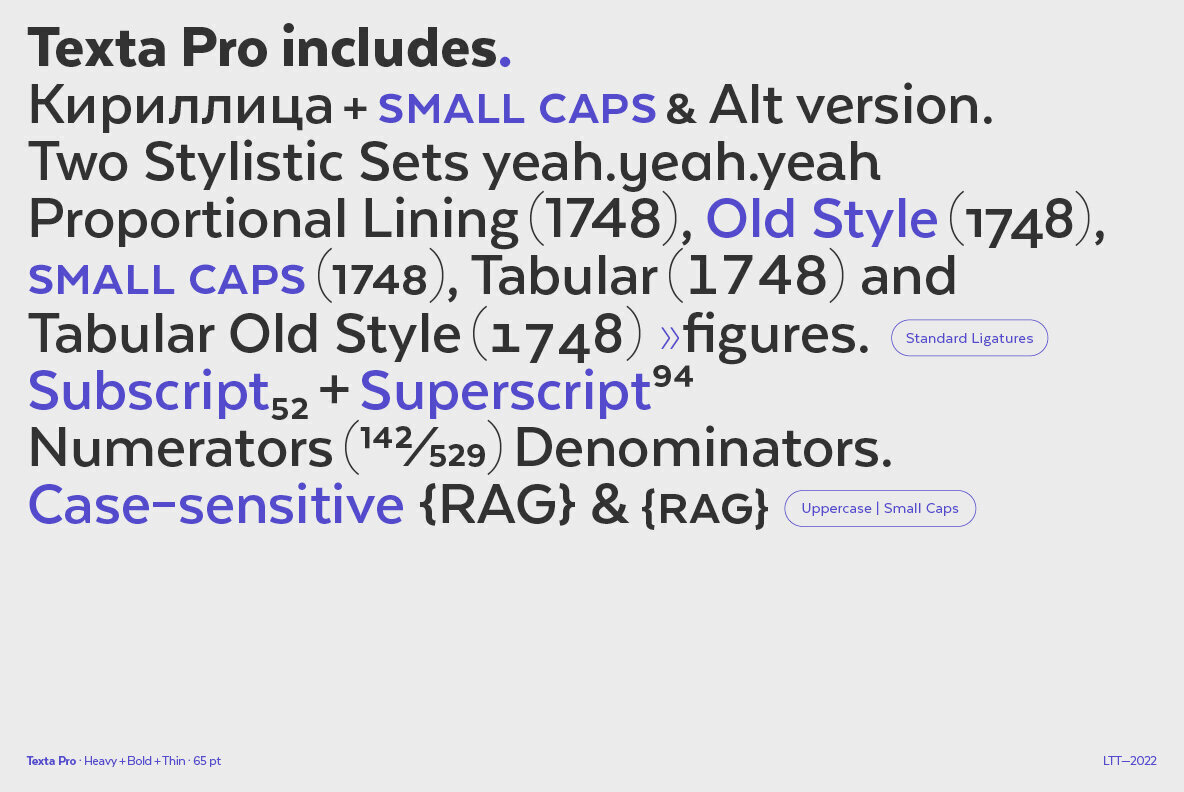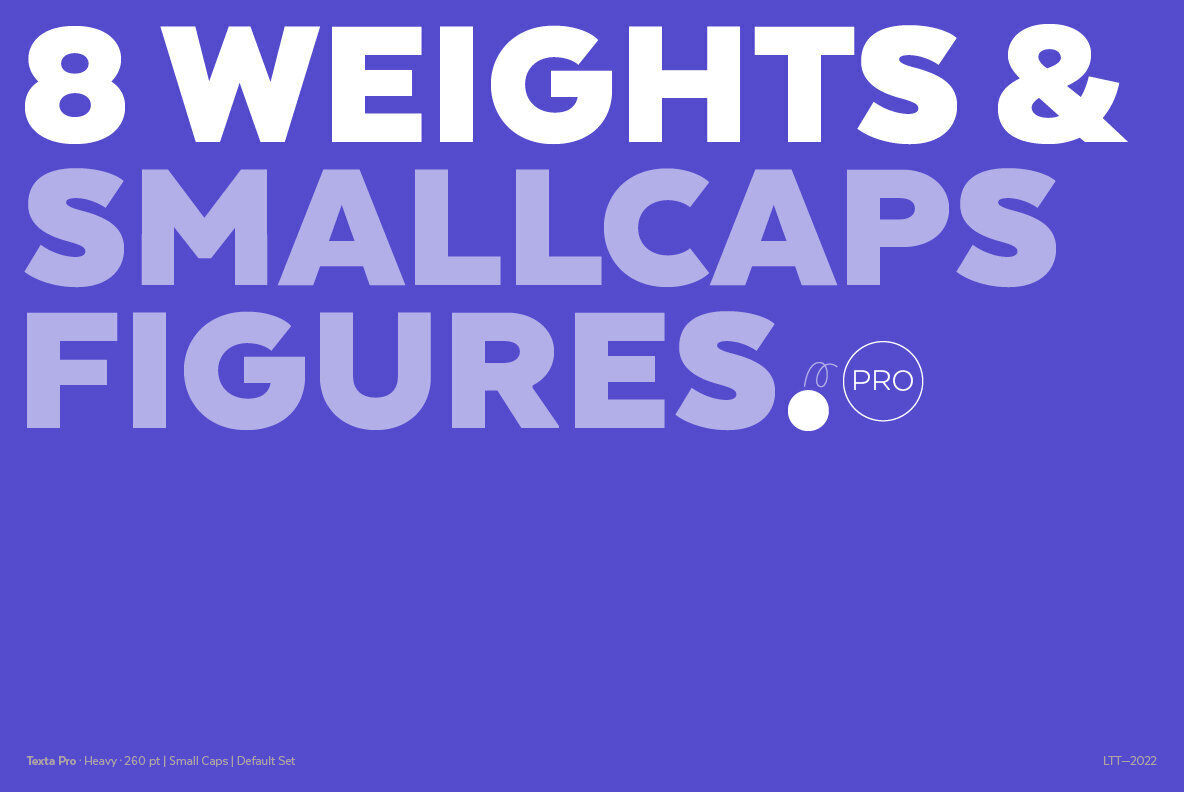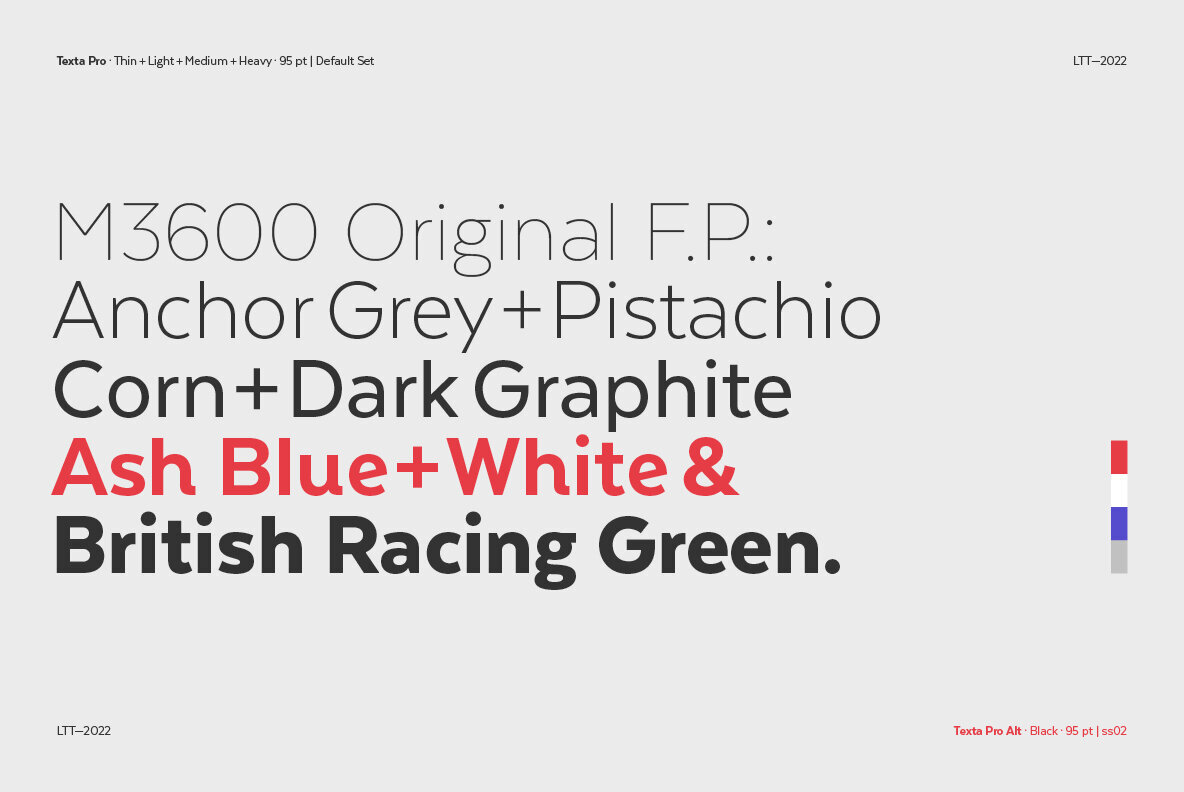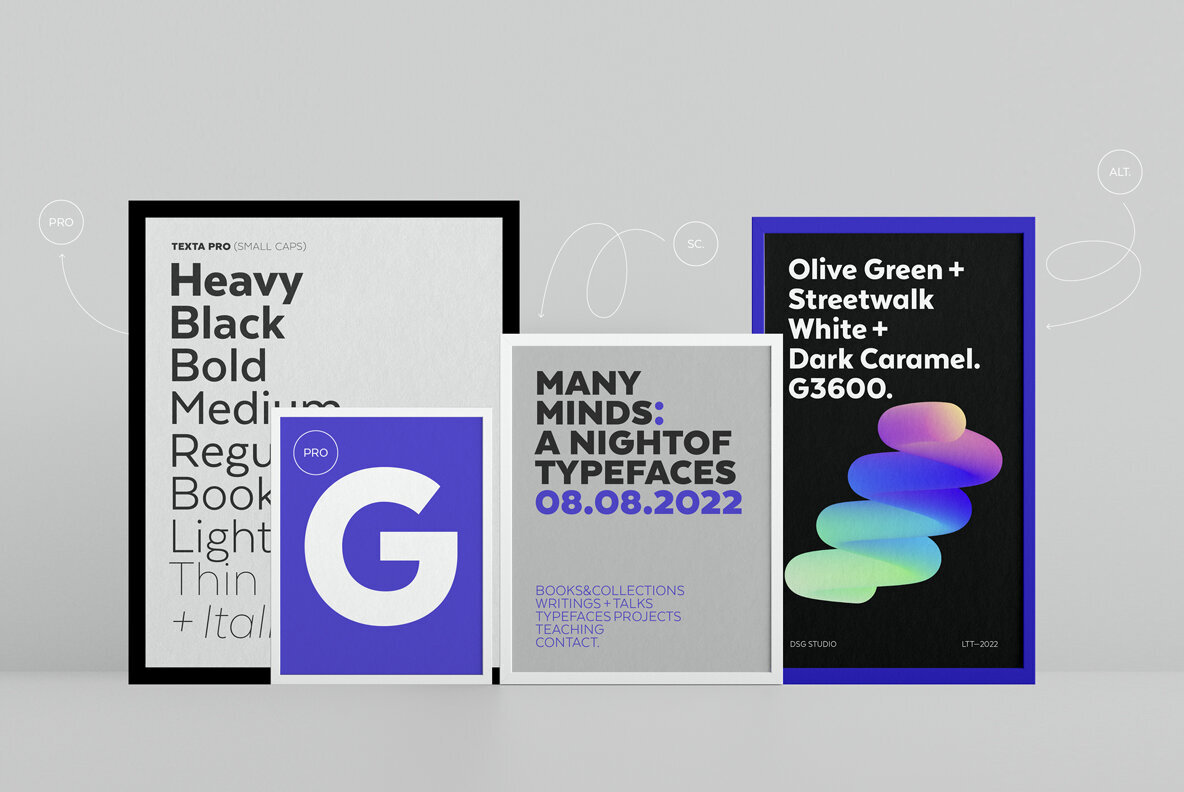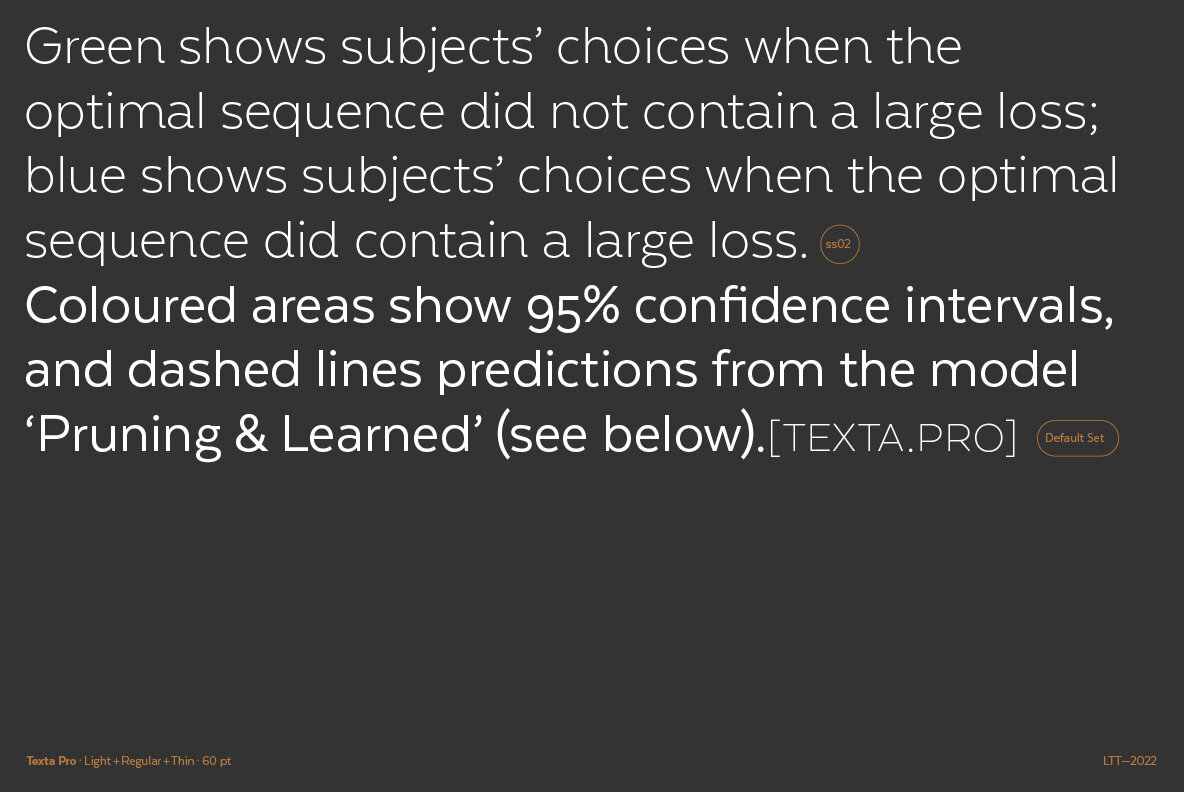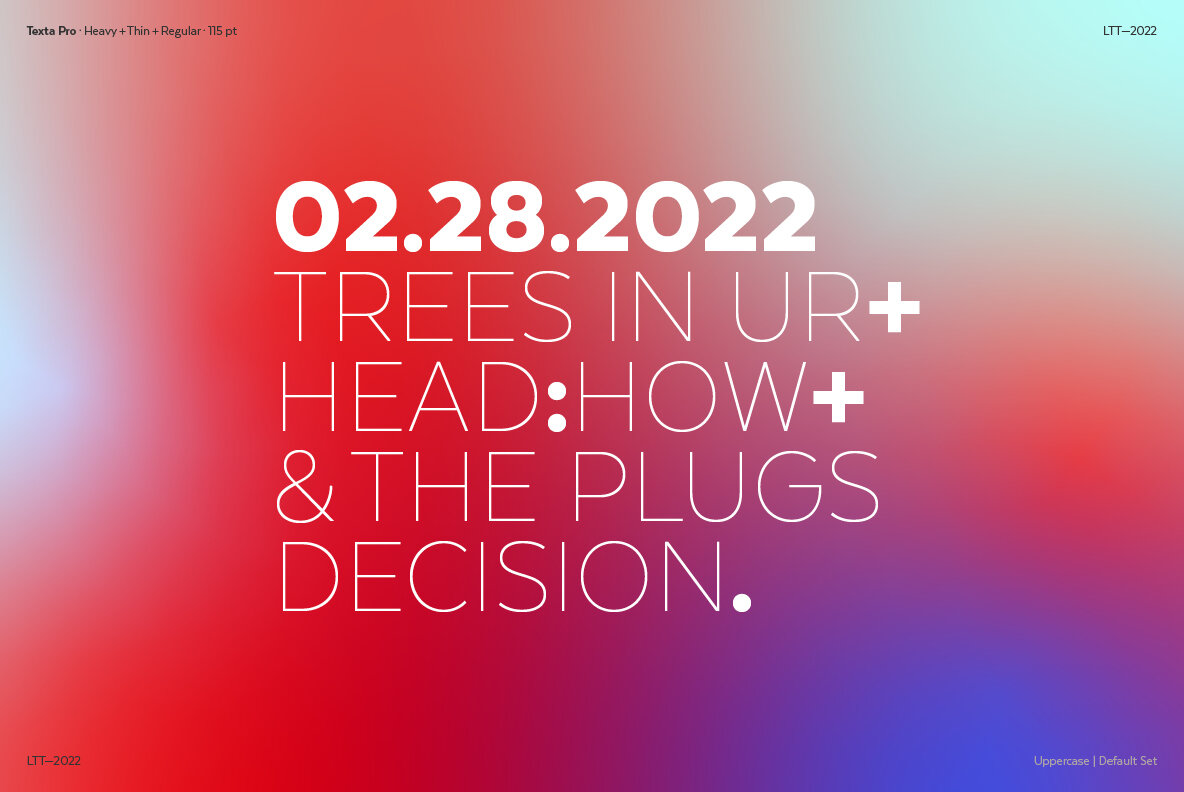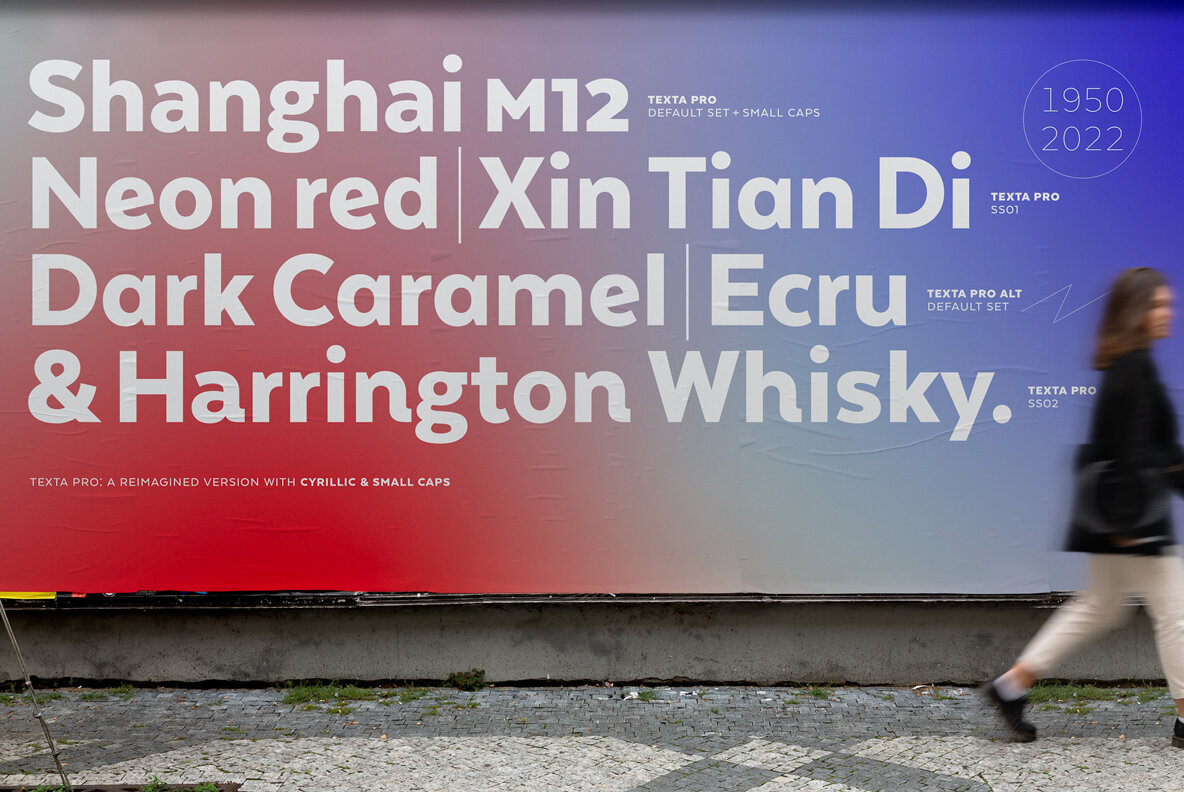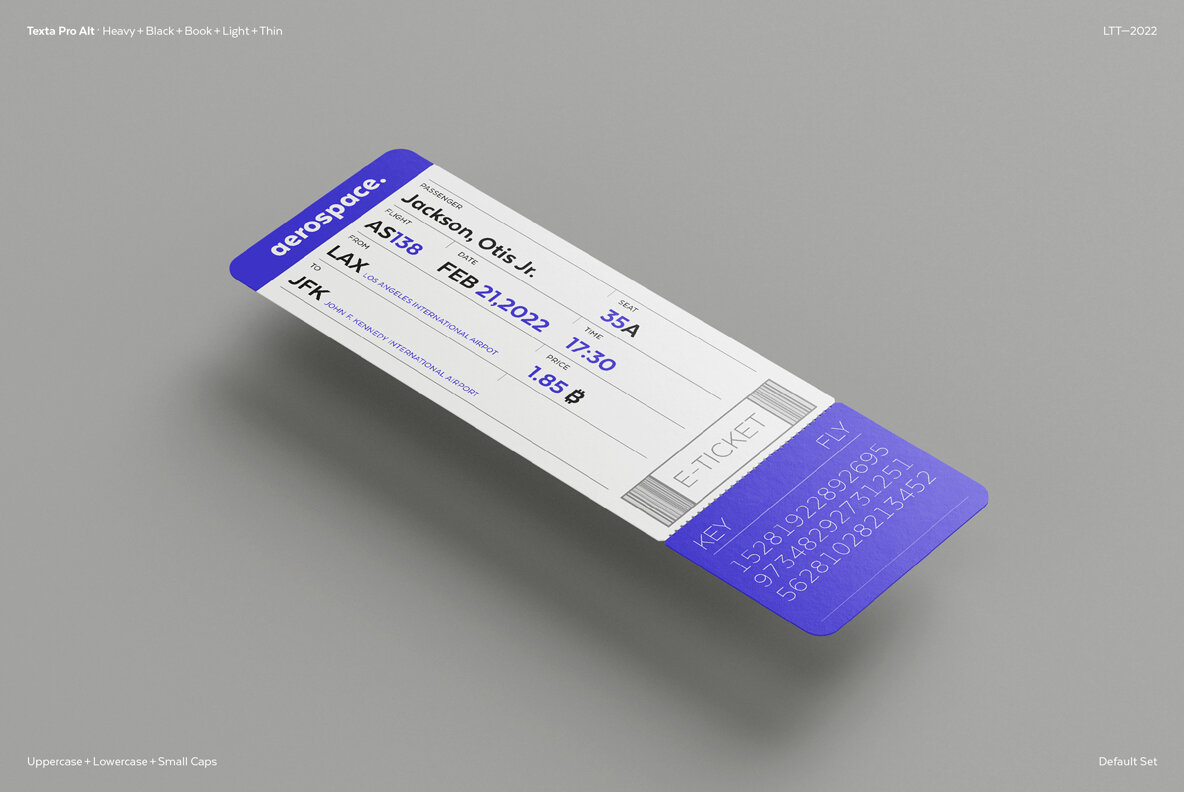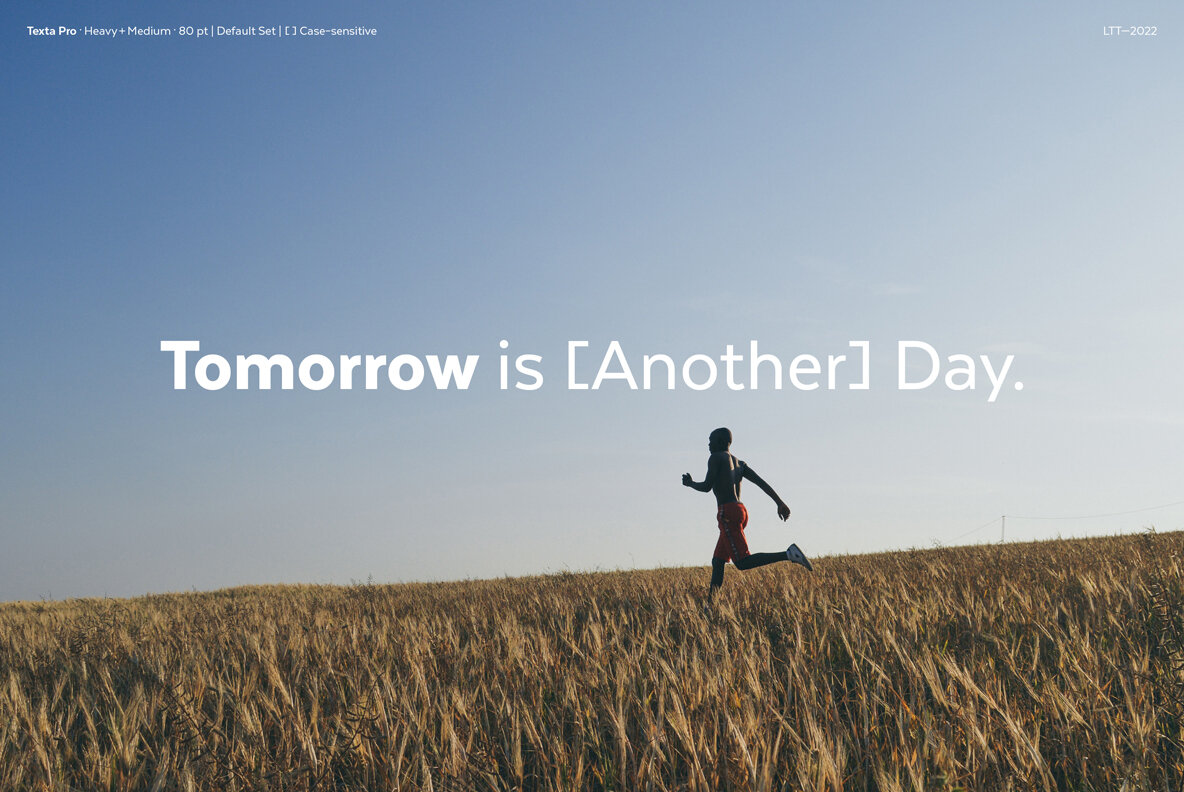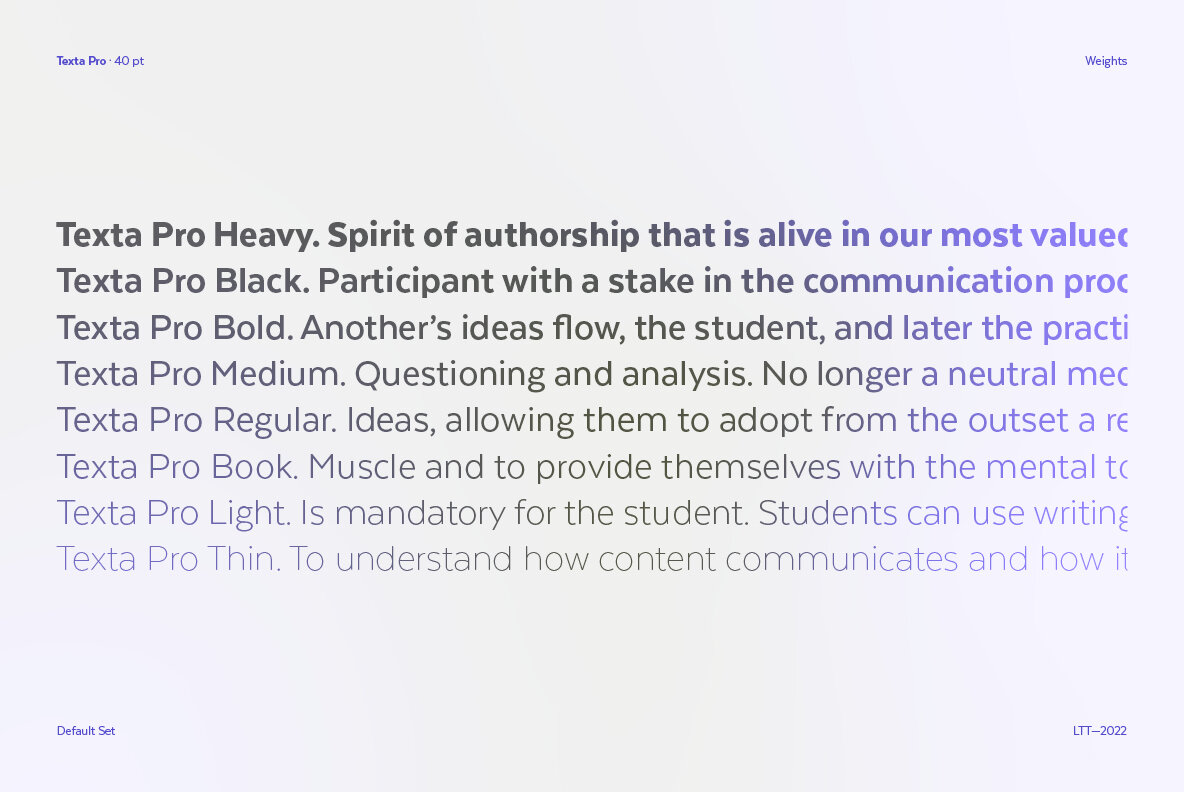
Texta Pro Font
Because all good things can get better. Texta was born in 2014, a collaborative project of the study of humanist models from Edward Johnston to Adrian Frutiger. Texta Pro is a contemporary and rational sans, almost invisible, but not quite. It is a workhorse for any type of project.
New design of symbols such as Section, Partialdiff, Dagger, approxequal, among others. Expansion of monetary signs (Bitcoin, Peso, Franc, etc.) Basic ligatures fi, fl. Includes Cyrillic.
Added set of small caps for Latin, Cyrillic, numbers, punctuation and monetary. Increased set of monetary and mathematical symbols. Set of 983 glyphs, 487 more glyphs than the update. New ligatures ff, ffi, ffl, It has two stylistic sets, ss01 and ss02 (tails). Set of numbers with versions: higher, lower, denominators, numbered, old, modern and tabular for the last two cases. New fractions added. Set of case sensitive signs.